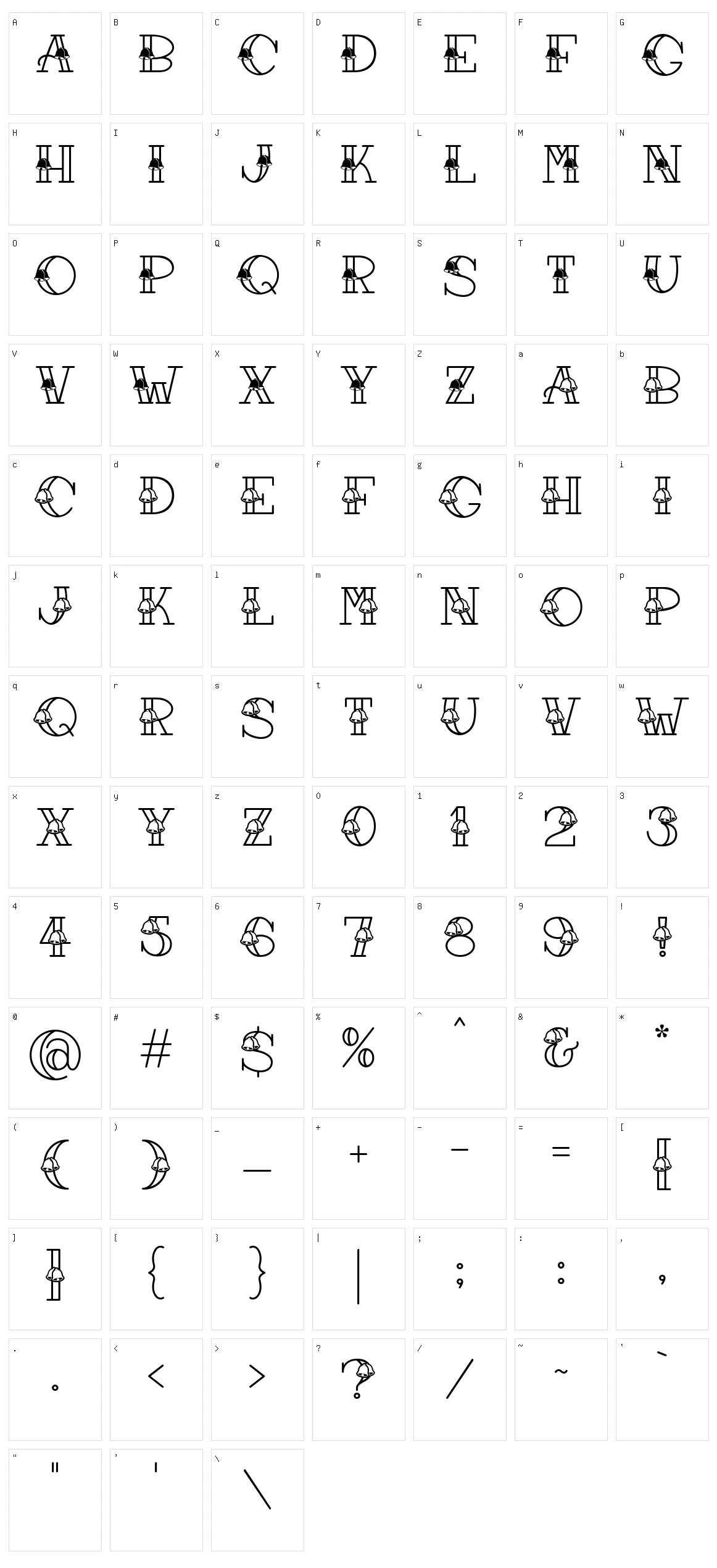
The free font Forever Christmas Bells is carefully designed by Amber Nest, showcasing a thoughtful balance of creativity and usability and falls under the Christmas font style. When you download the ZIP file, it contains only 92.58 KB of font files, making it lightweight and quick to download. Please review the license details below to understand permitted usage and distribution rights. If license information is not available, we recommend using this font for personal projects only or contacting the author directly for commercial usage permissions.